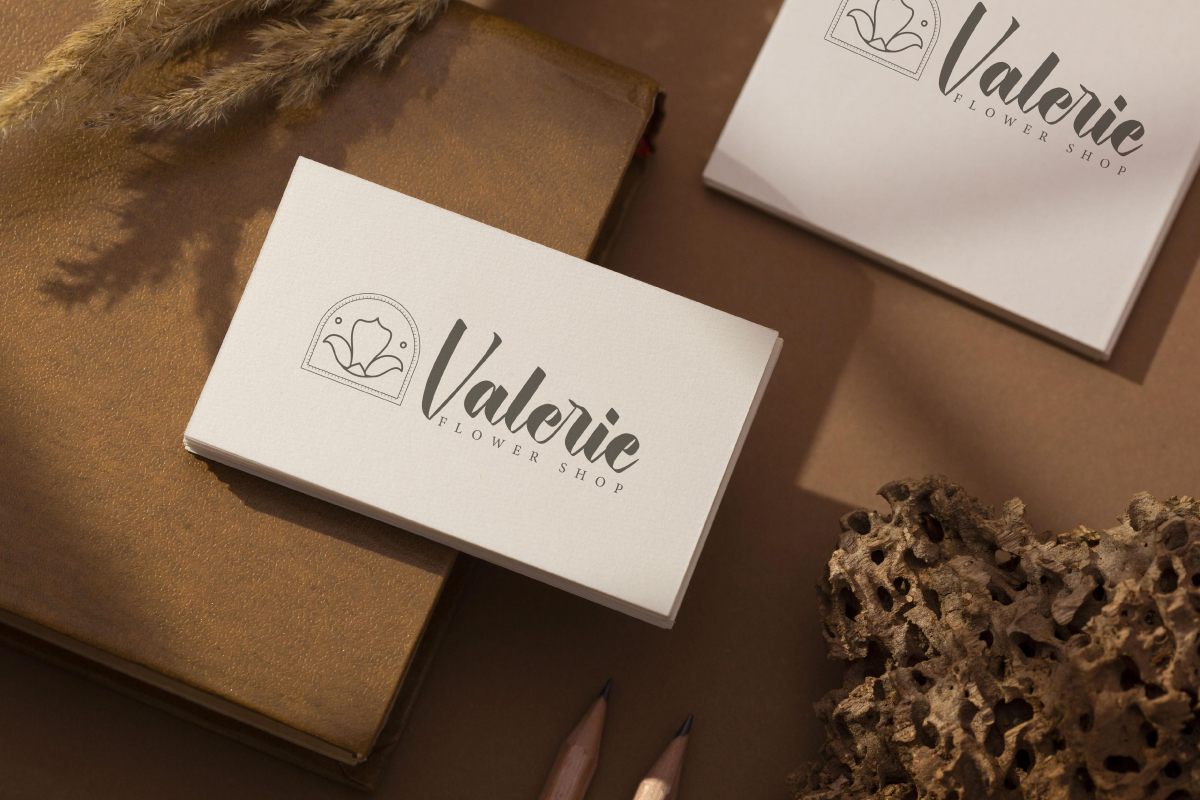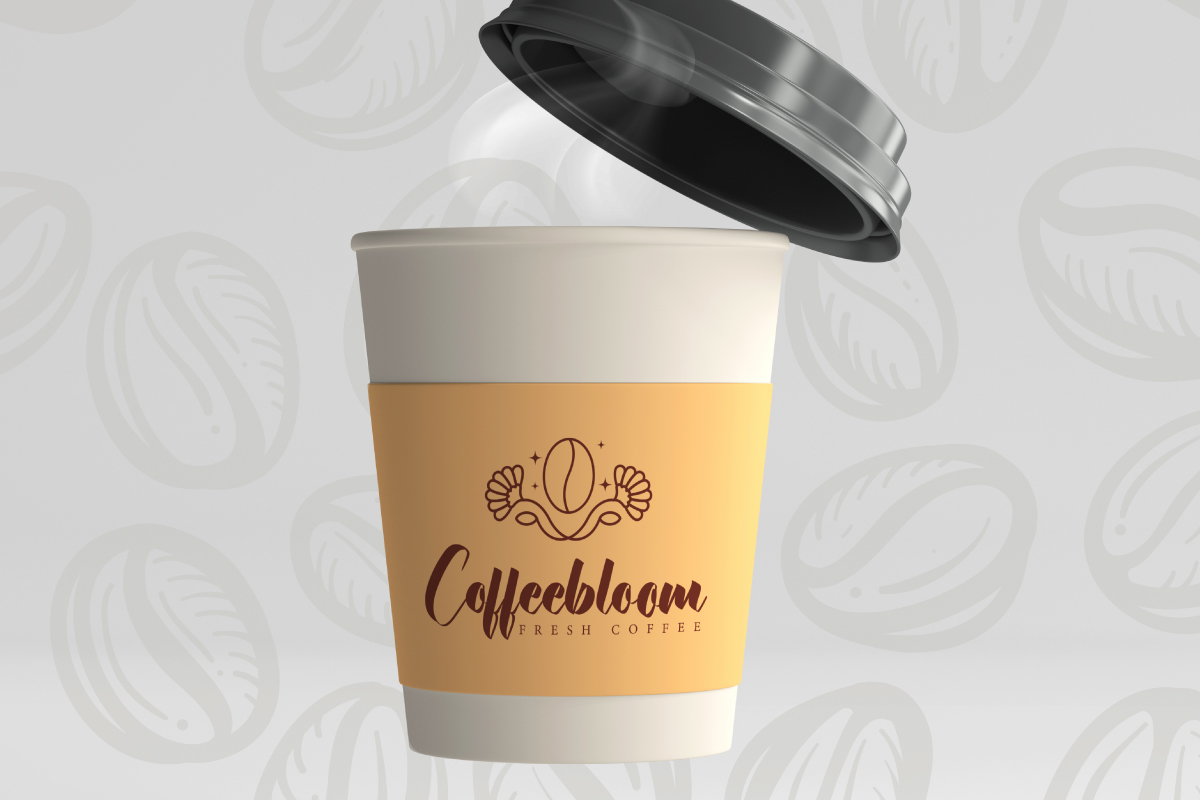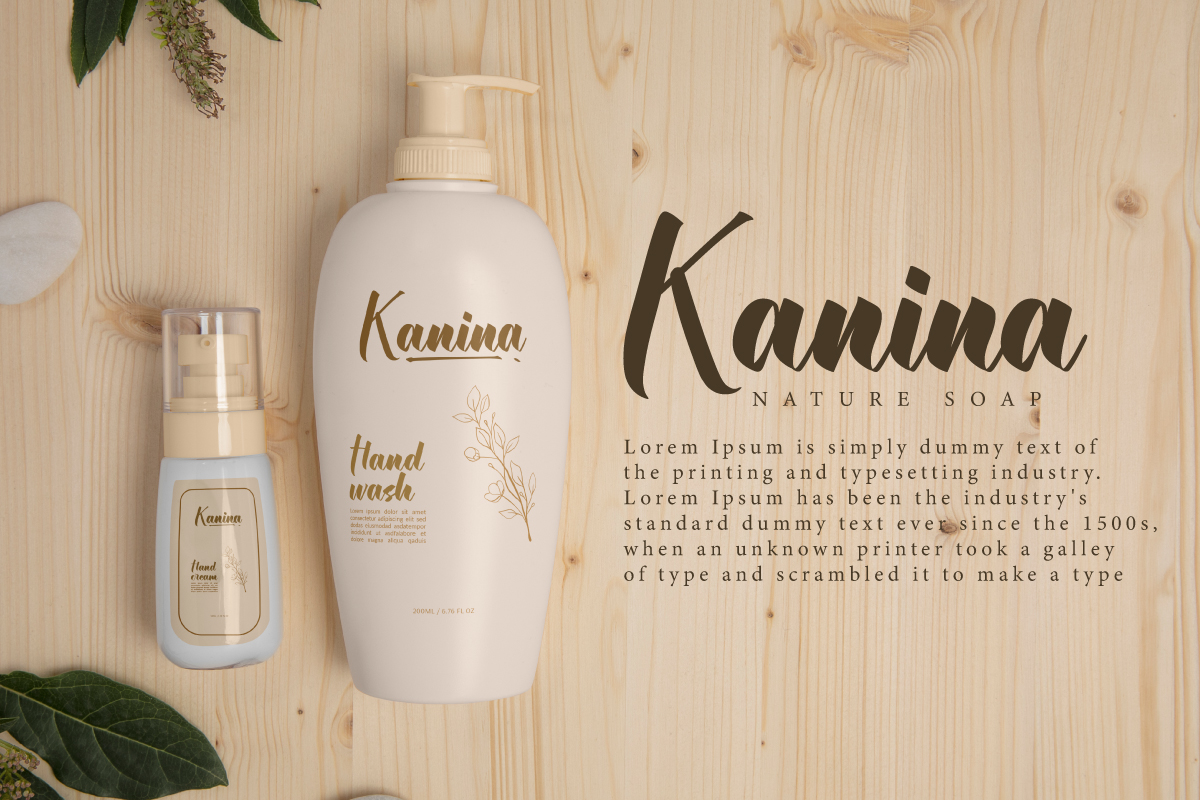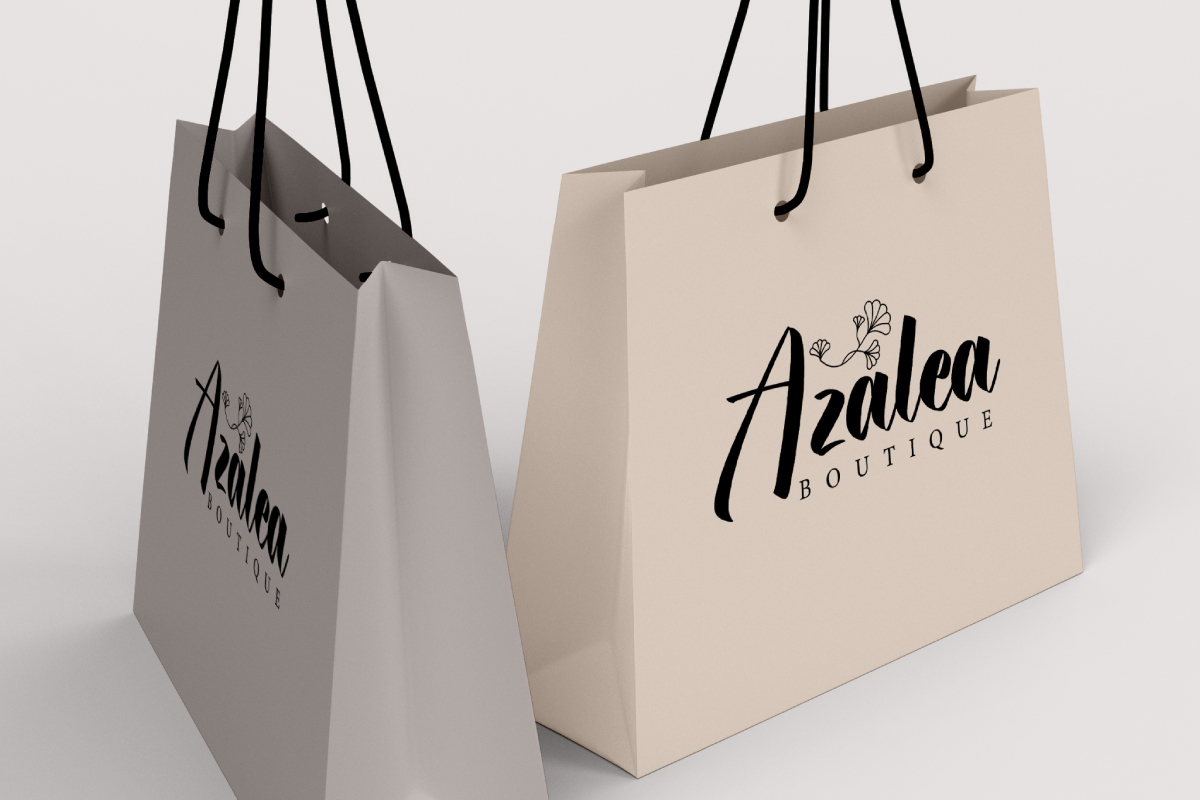
Guardsman Font
Guardsman Script Font is a classy calligraphy script with bold and stylish look, created by CalligraphyFonts. This will bring any design look to life! apart from looking luxurious, this timeless looking strong font can add a lot of nostalgic character to your designs, such as brand logo, business card, labels, packaging design, screen printing, sticker, website, much more.